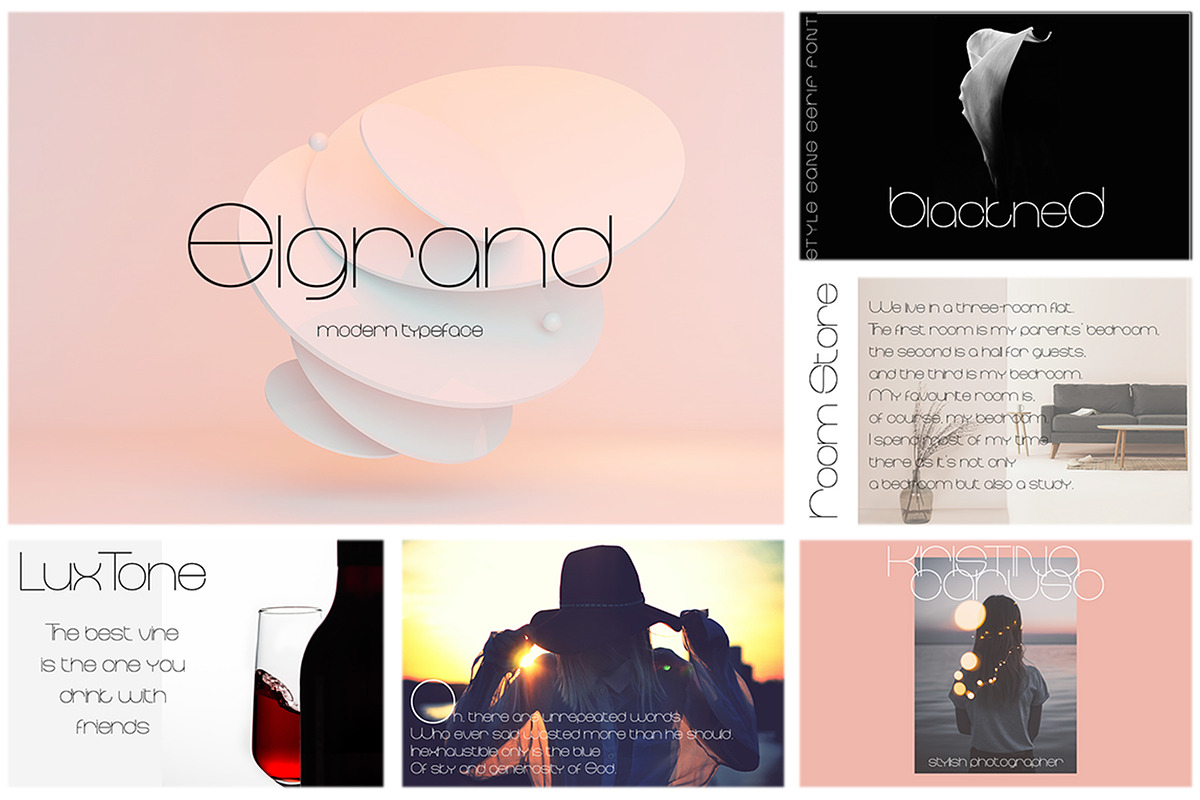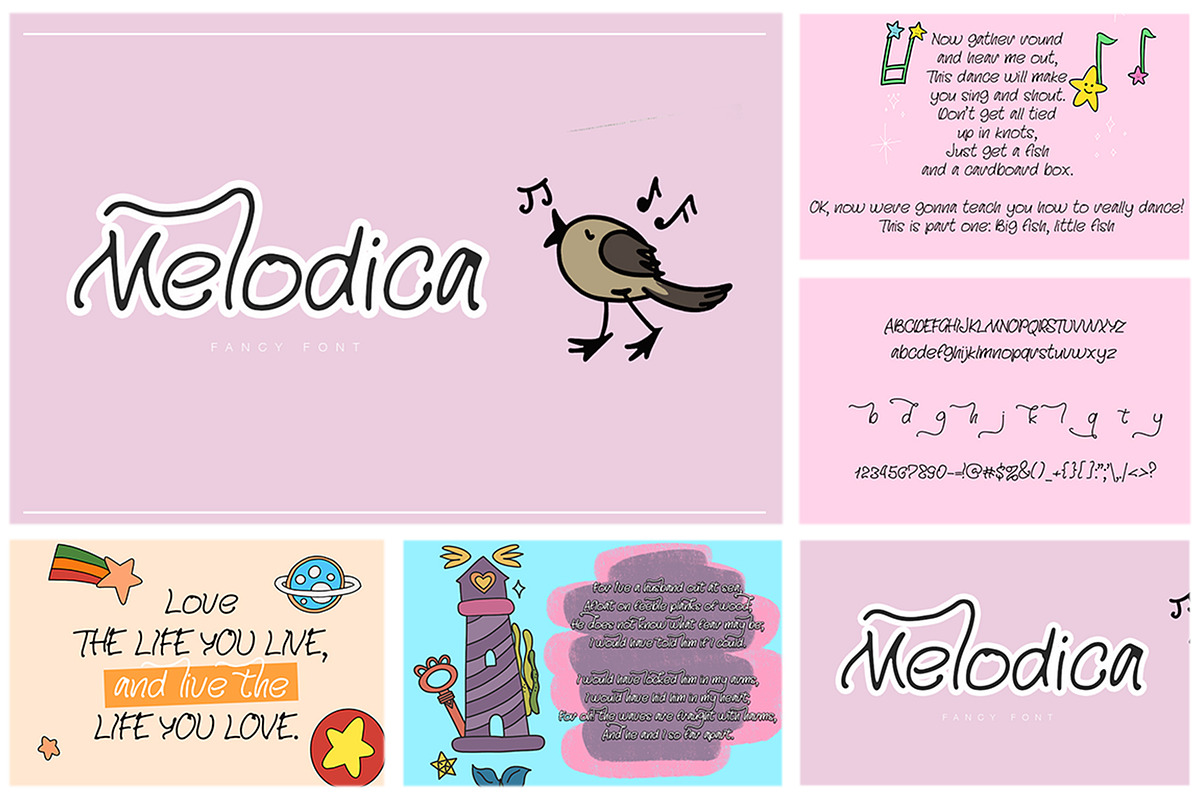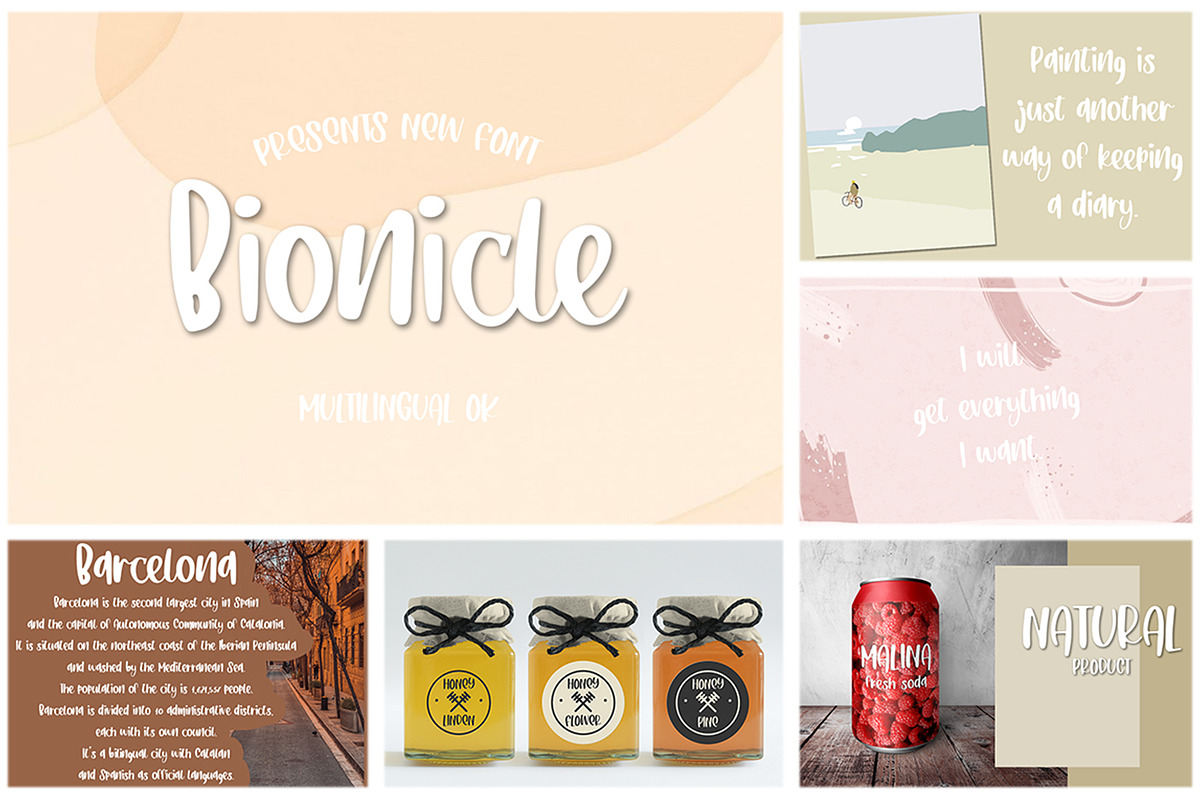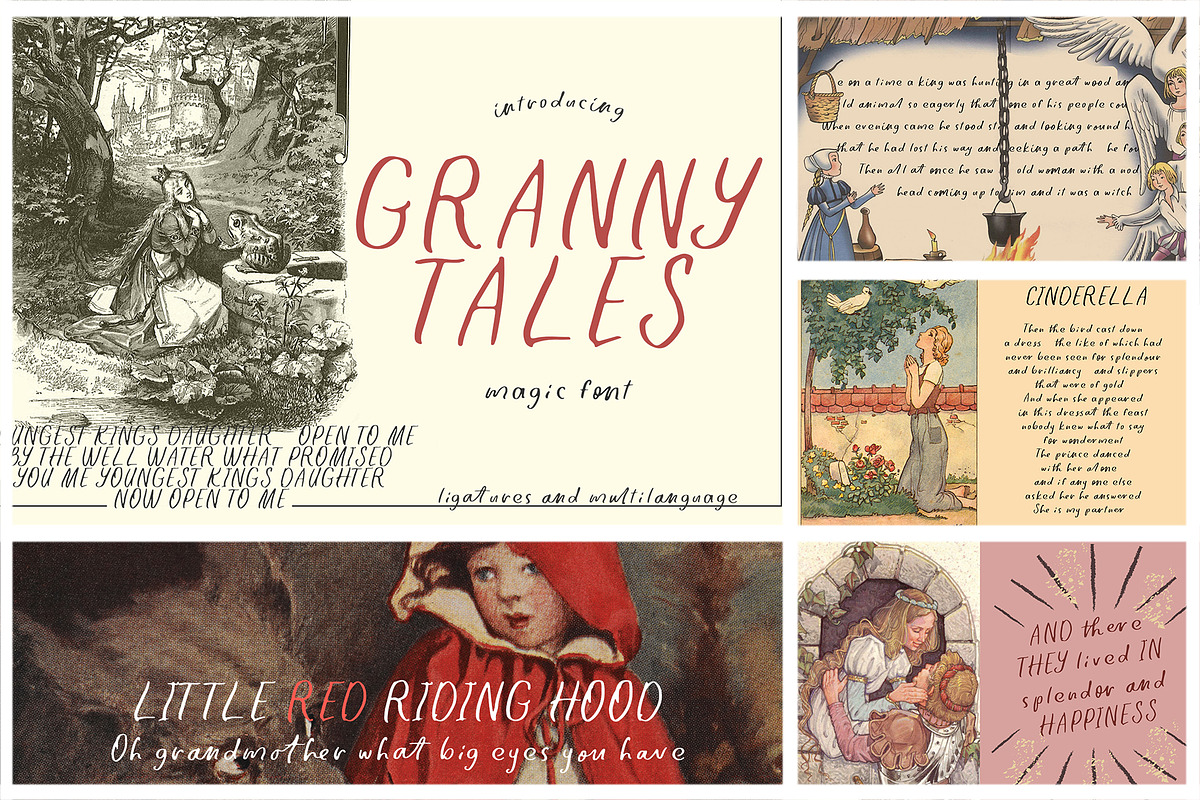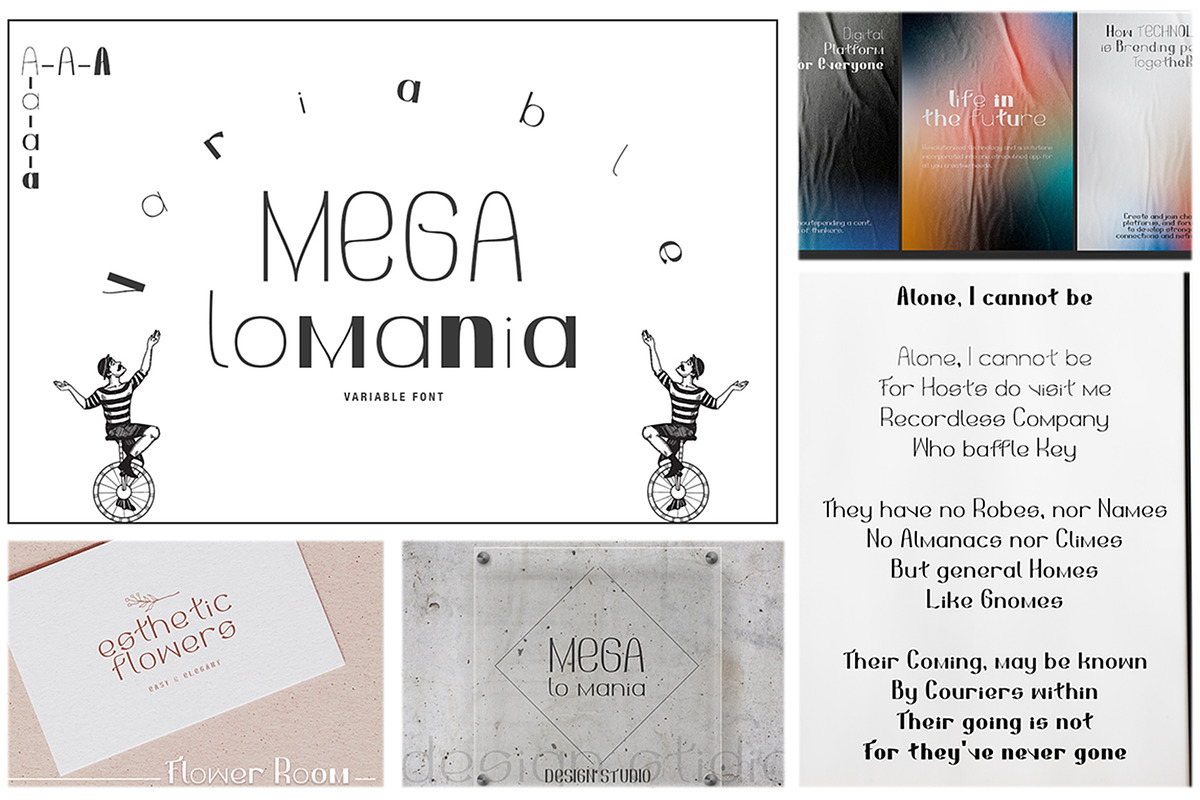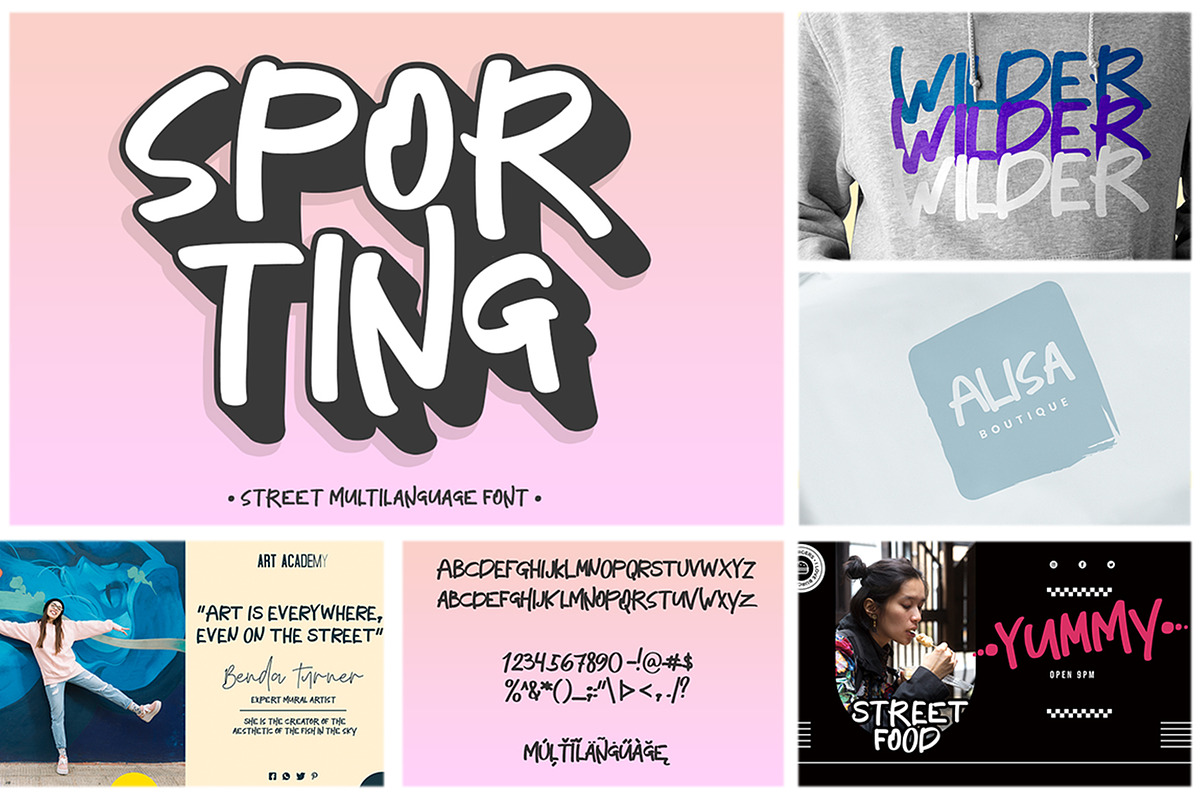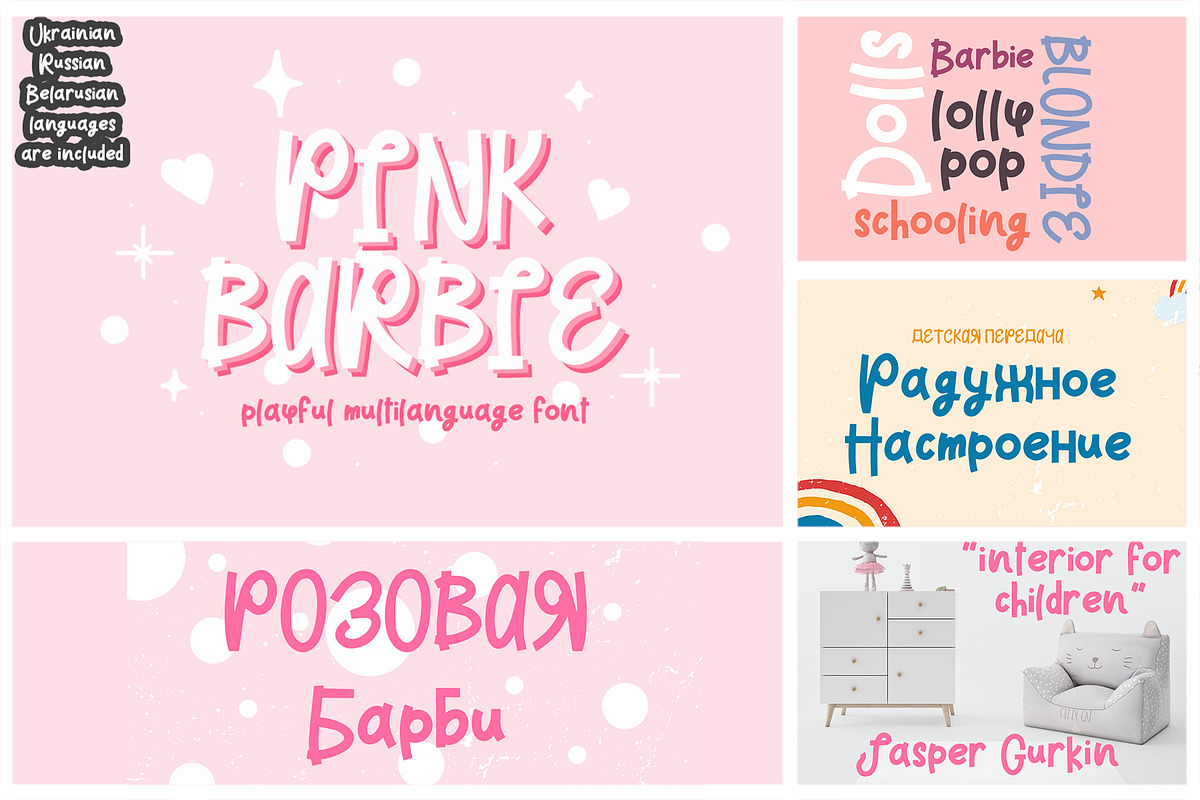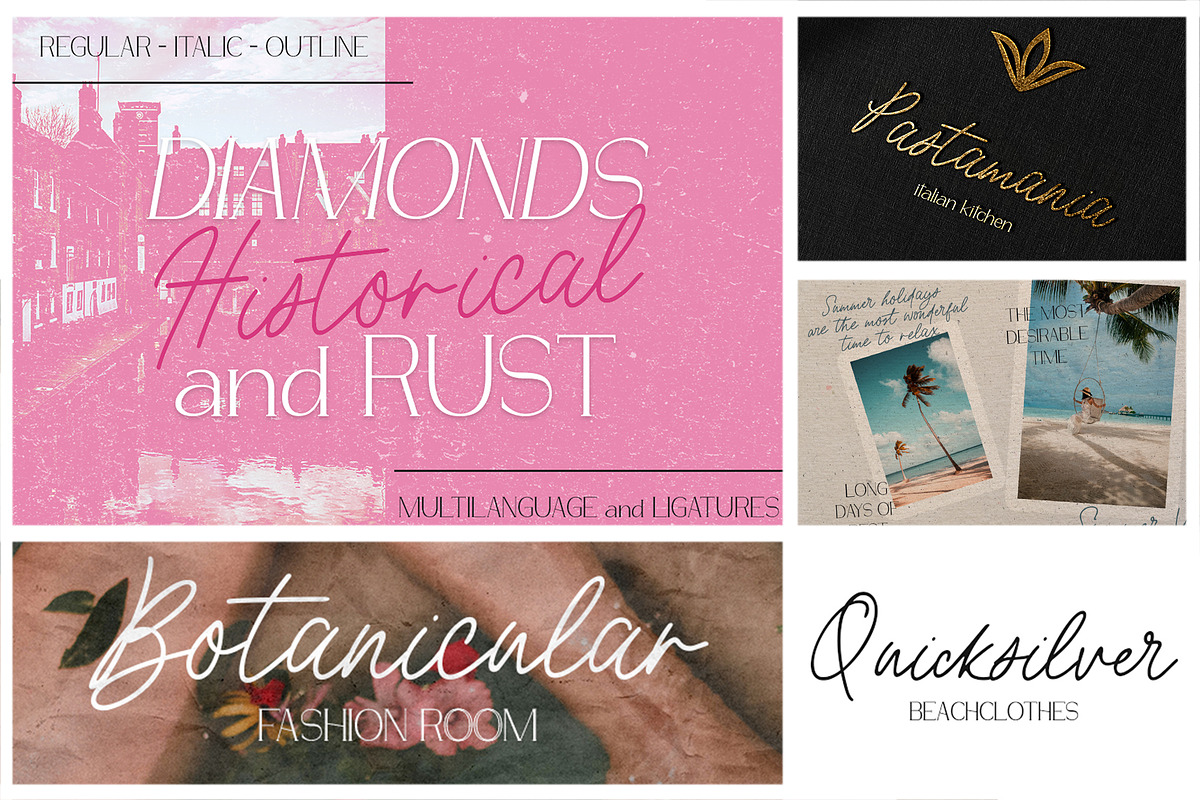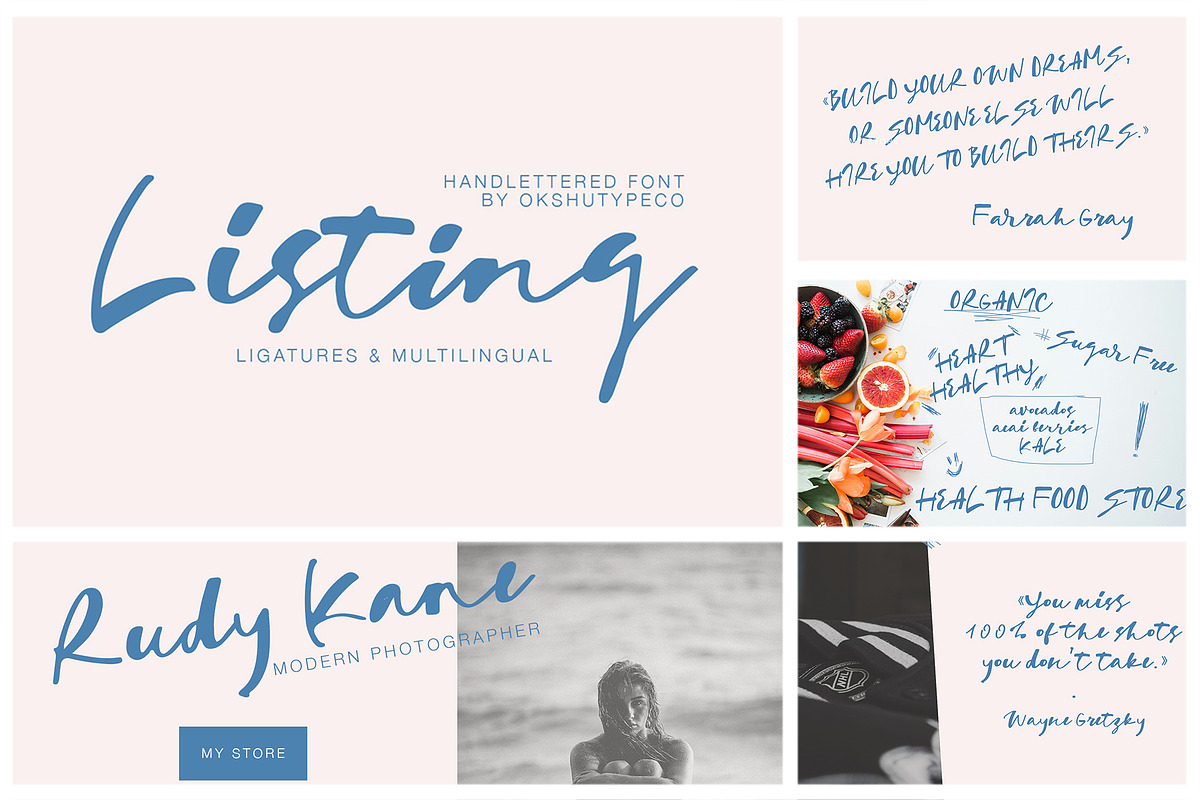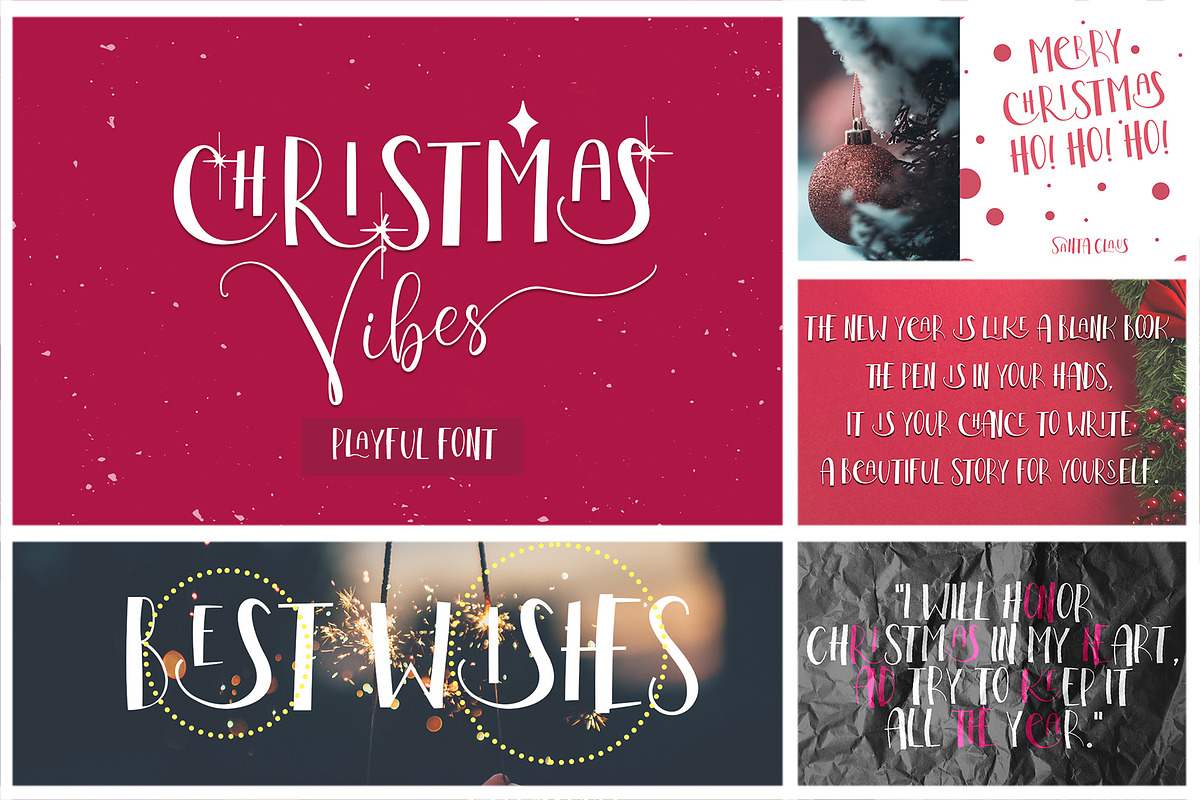
Unique 82in1 Handwritten font
UNIVERSAL BOX included 82 handmade fonts / script / sans / display / handmade / handwritten / font family/ variable font. All fonts is perfect for branding, headings, signatures, logos, blog, wedding invitations, t-shirts, letterhead, merchandise, signage, lable, news, posters, badges etc. Variable Fonts, Multilangauge fonts, Alternates, Ligatures, FamilyFonts, Kids fonts.